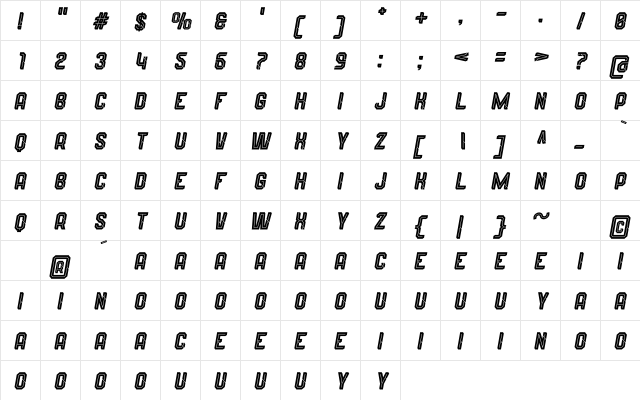
Wynford Line Alt. 1 Italic
Design Context for Wynford Line Alt. 1 Typeface
Wynford Line Alt. 1 is a composed and adaptable typeface that performs quietly and consistently across a wide range of design contexts. The dynamic lean of this cut emphasises speed and emphasis in any layout.